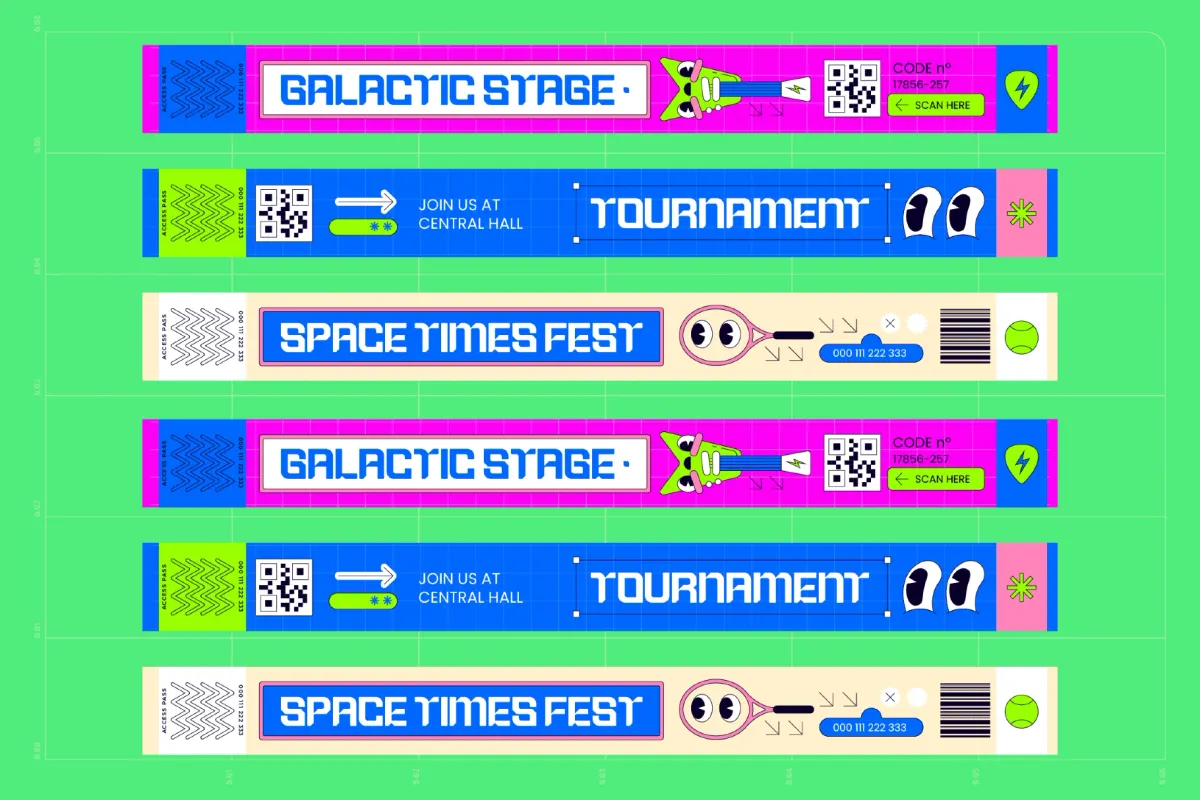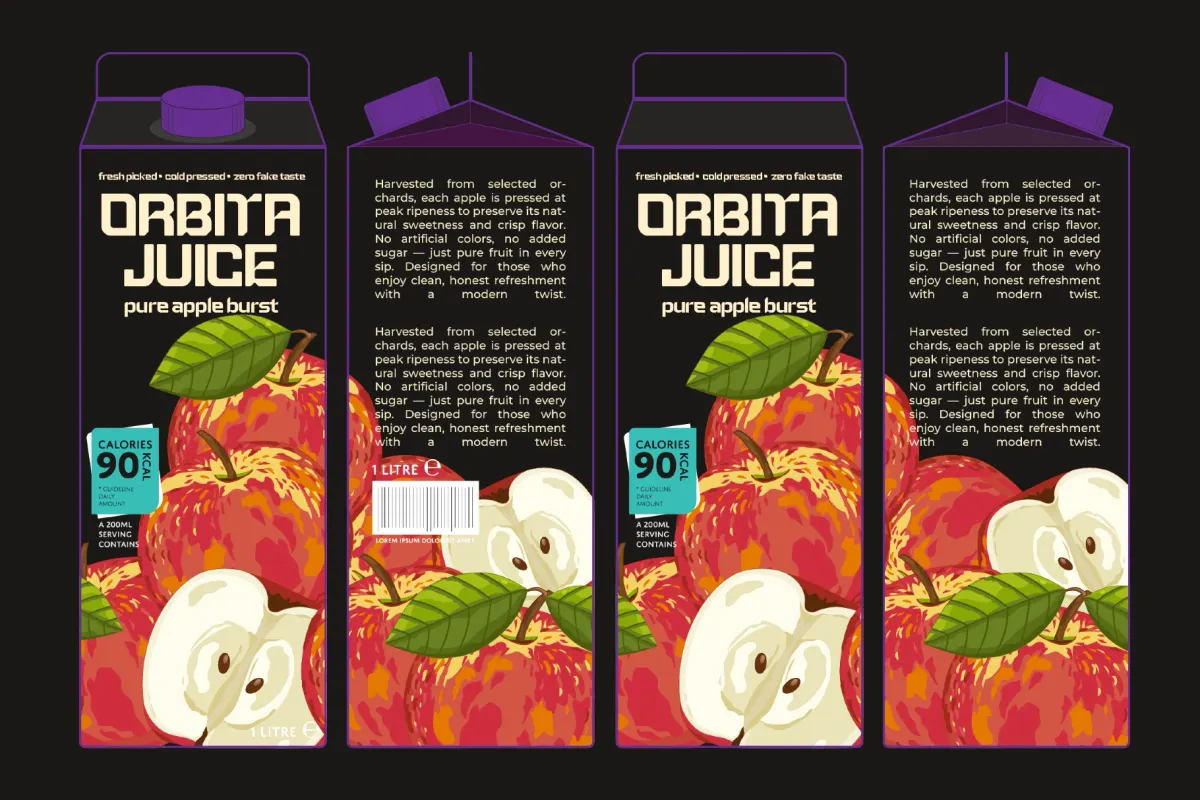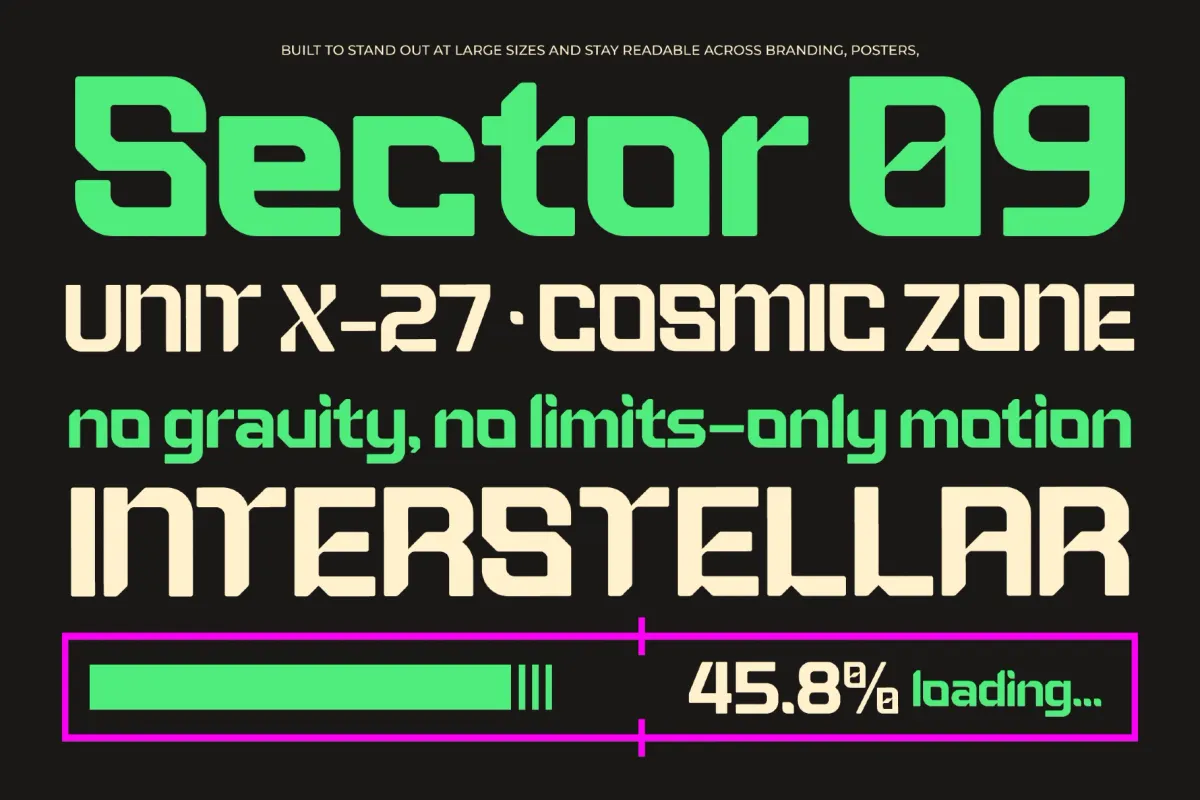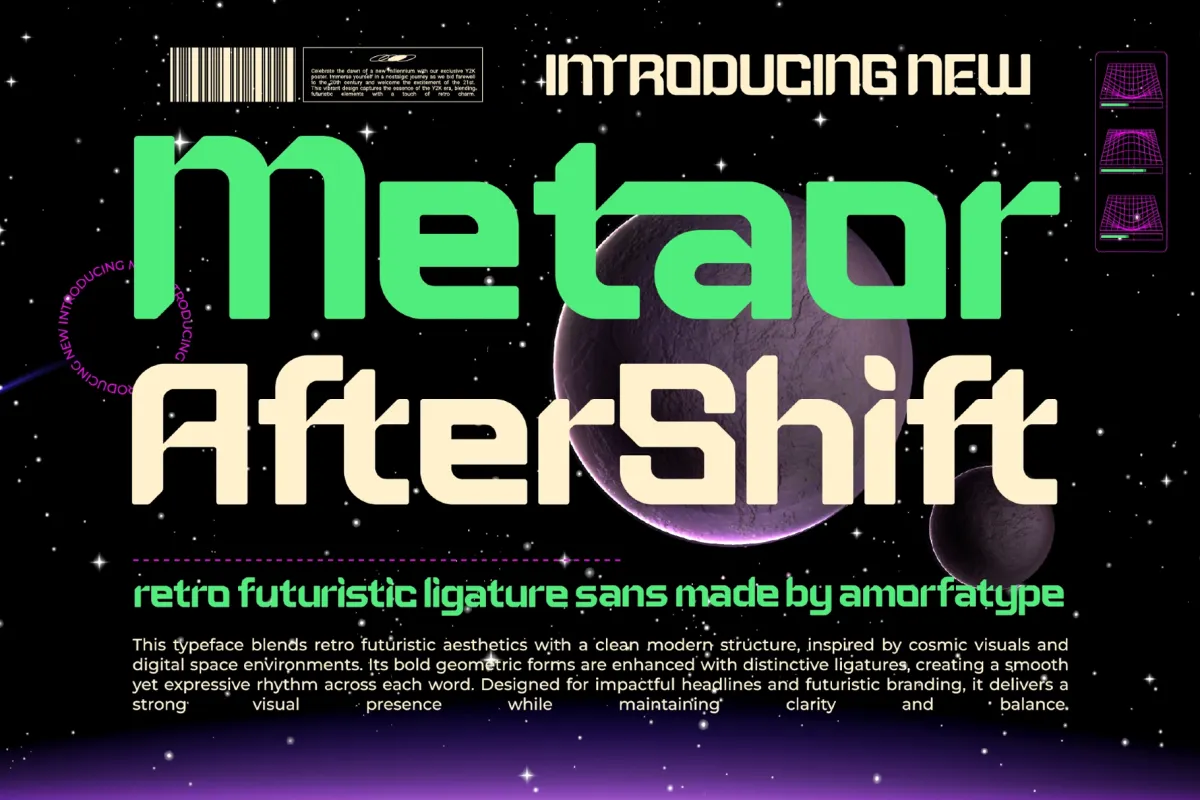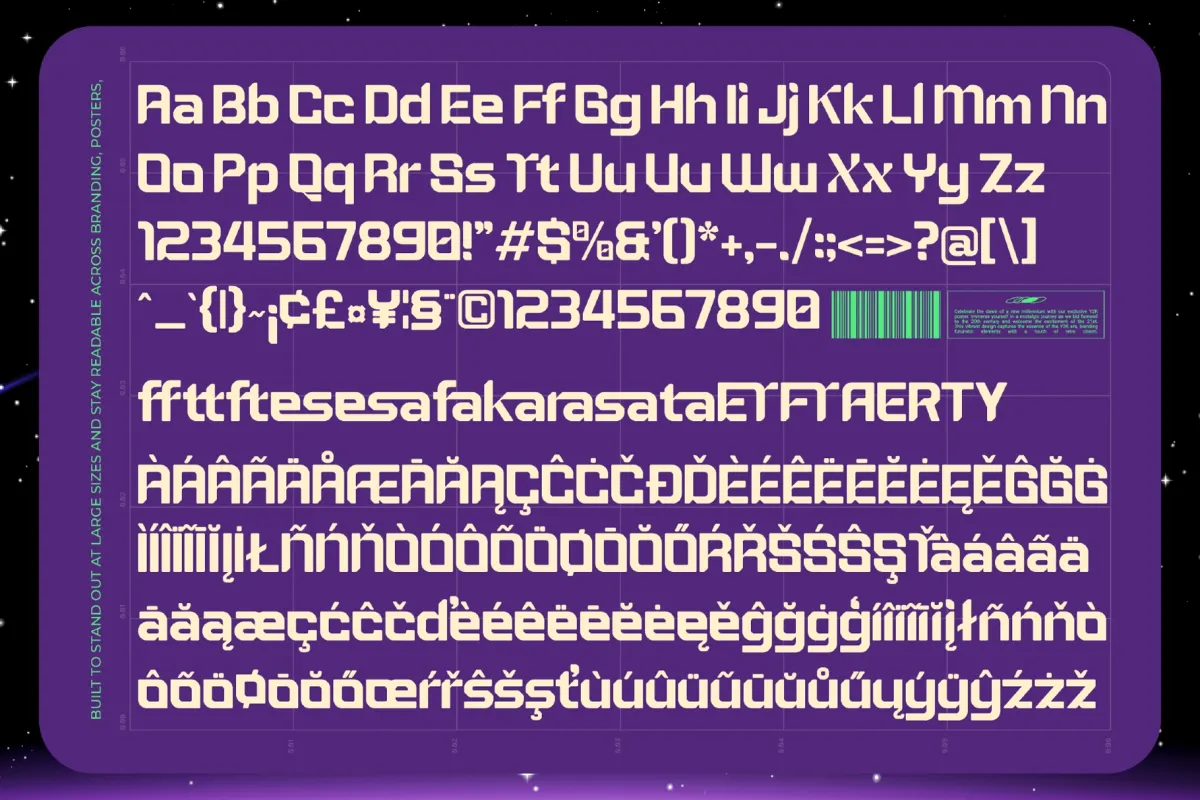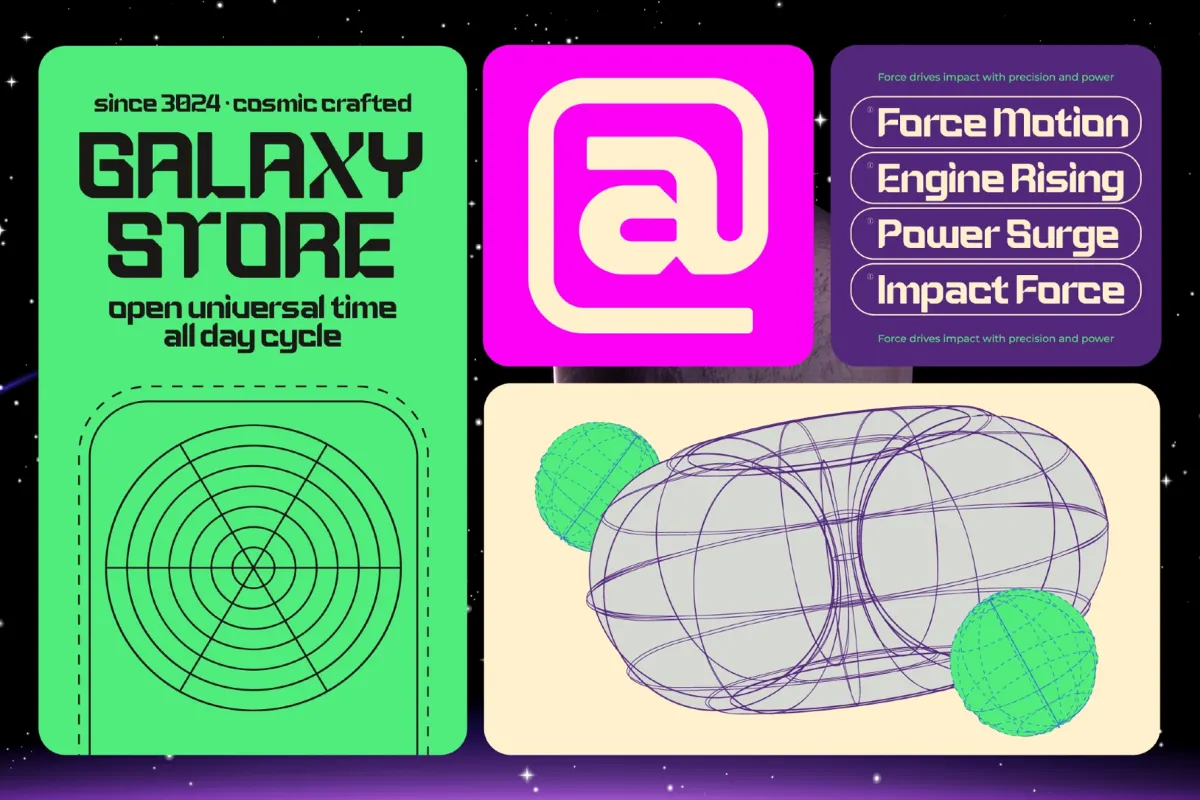
Metaor Aftershift - Futuristic Display Sans Font
This futuristic display sans has a bold modular build, squared curves, sharp cuts, and a space-age rhythm pulled from sci-fi interfaces, cyber club posters, and early digital graphics. The letterforms are wide, confident, and highly readable at large sizes, with ligatures and alternates that give headlines a custom-coded edge.
Aftershift is a strong choice for tech branding, gaming titles, esports graphics, music covers, festival posters, app headers, UI concepts, product packaging, YouTube thumbnails, space-themed campaigns, merch prints, logo systems, and bold social media visuals. Its 349 glyphs, multilingual support, 12 ligatures, and 5 alternates give designers plenty of room for expressive headline work without losing structure.
- 349 glyphs
- 12 ligatures
- 5 alternates